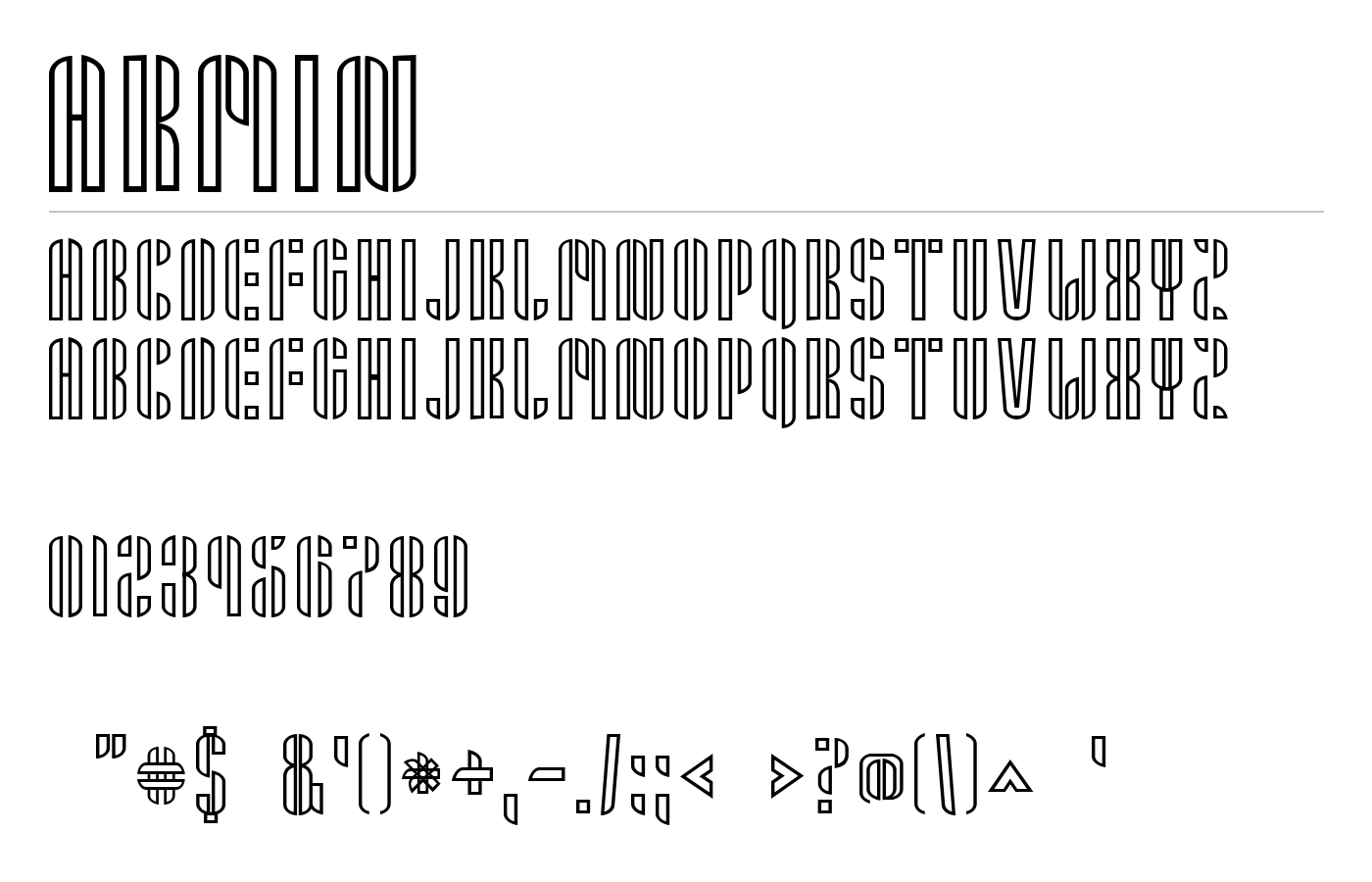
Armin is a tall, narrow sans serif font with a modern and geometric style characterized by its thin, crisp lines and high contrast stroke system. Its condensed letterforms and unique angular details make it ideal for striking headlines, logos, and contemporary branding that seeks a sleek and futuristic look. This font excels in creating a bold visual impact where space is limited, lending a sophisticated yet edgy personality to design projects.
Armin Font
About Armin Font
| Font family | Armin Font |
| Designer | namioty.info |